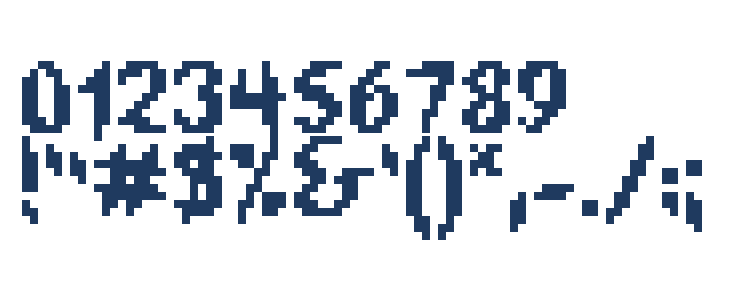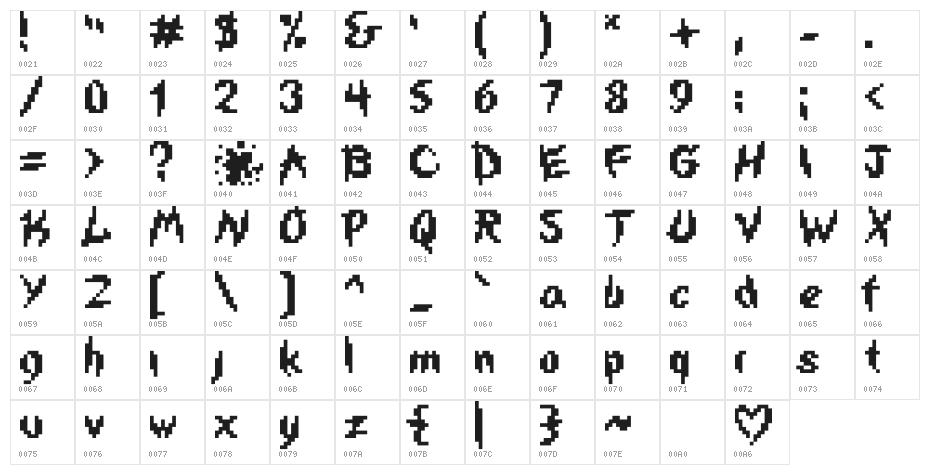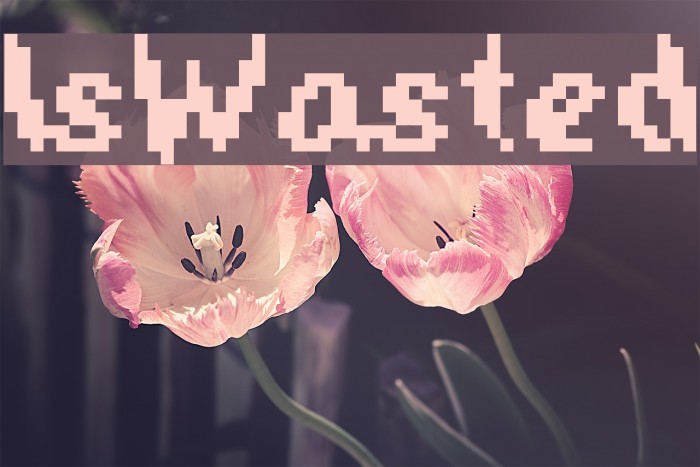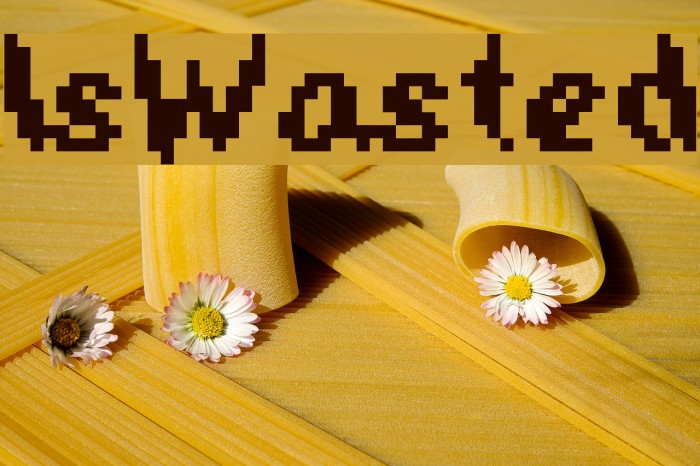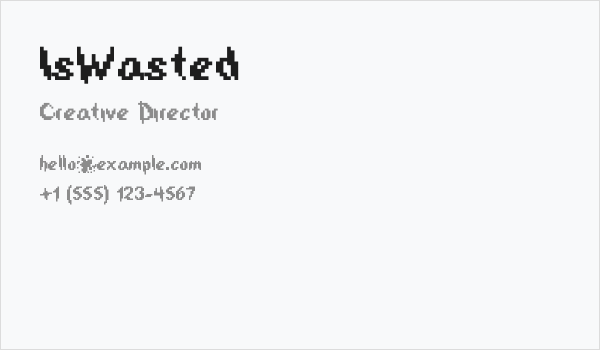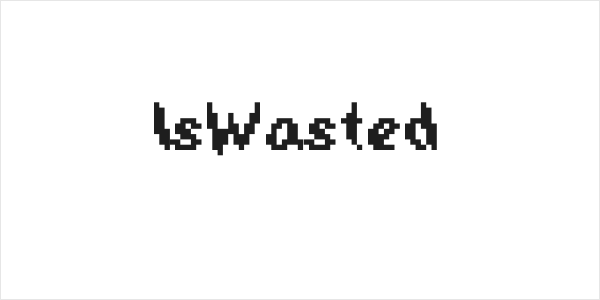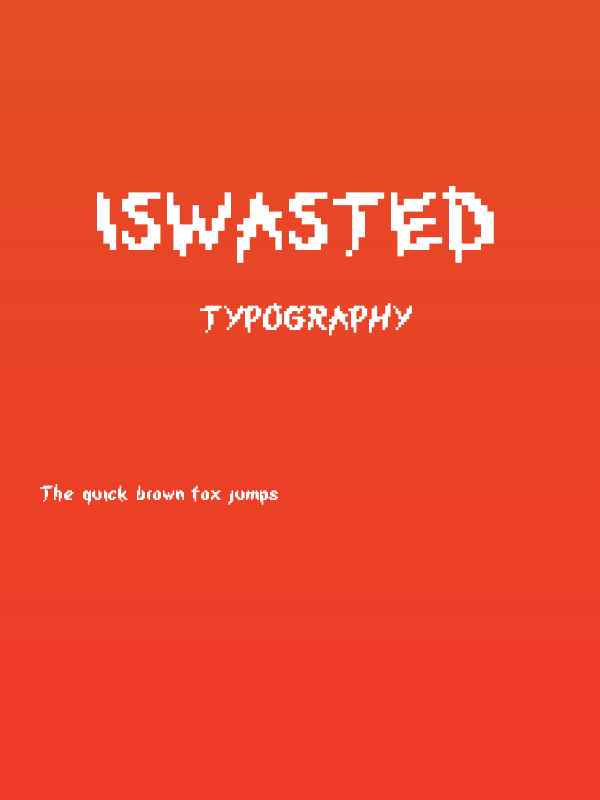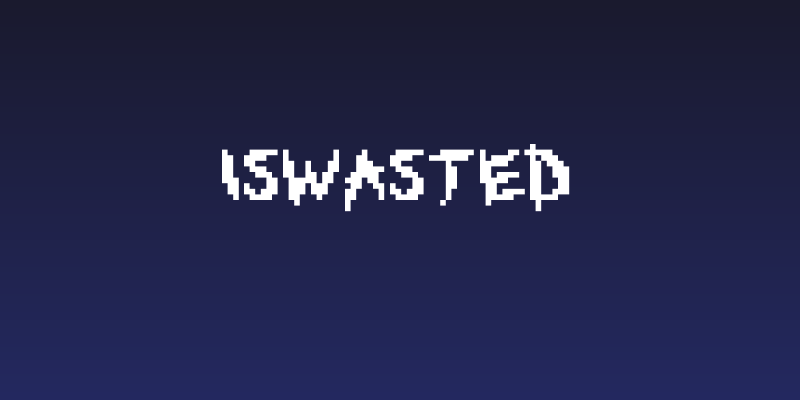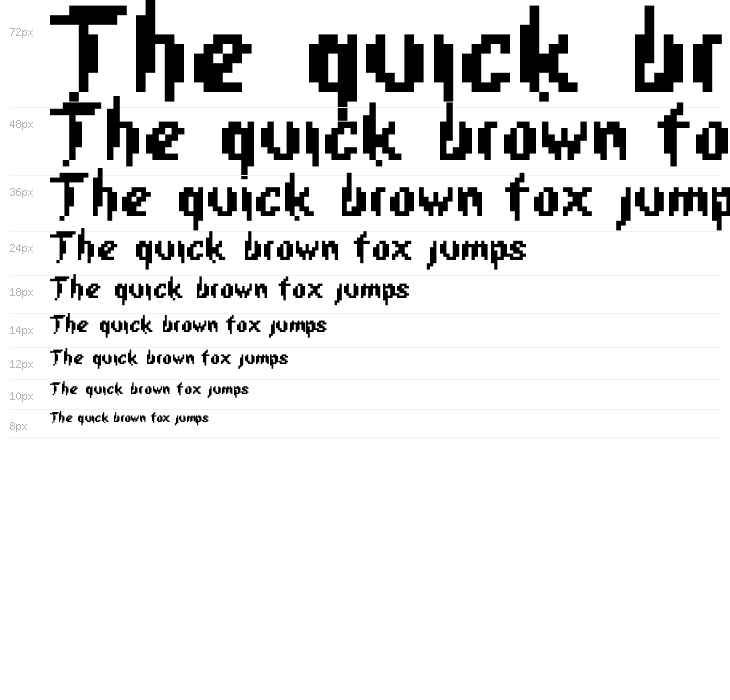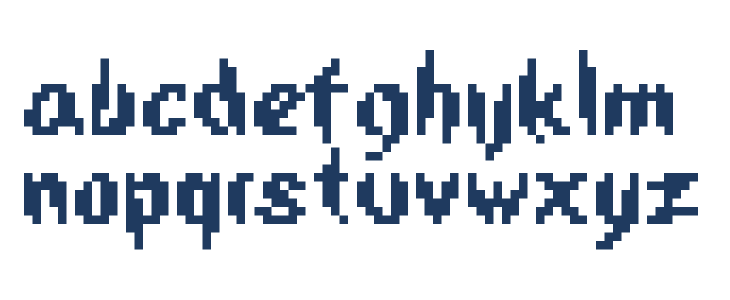
IsWasted Font
IsWasted Description
This font features a bold, pixelated style reminiscent of retro video games and digital displays. The characters are blocky and angular, with a consistent thickness throughout, giving it a strong and impactful appearance. The uppercase and lowercase letters maintain a uniform height, contributing to its cohesive look. Numbers and special characters follow the same design principles, ensuring visual harmony across all glyphs. The font's unique style makes it stand out, ideal for projects that require a nostalgic or tech-inspired aesthetic.
| Overall Style | Retro, Digital |
| Proposed Projects | Ideal for video game graphics, retro-themed posters, digital art, and tech-related branding. |